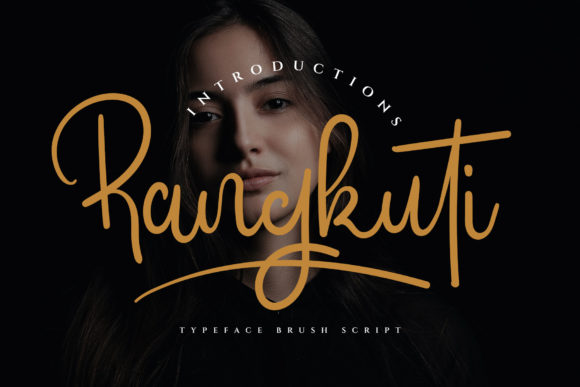
Introducing Rangkuti Font: A Script Font Odyssey for Design Portfolios
In a world where creativity reigns supreme, your design portfolio is your canvas, a stage for your artistic prowess to shine. And just as a painter's brushstrokes bring life to a blank canvas, Rangkuti Font emerges as the perfect instrument to transform your portfolio into a captivating masterpiece.
Embrace the allure of Rangkuti, a thin, cursive script font that dances across the digital realm with effortless grace. Its delicate lines and elegant flourishes evoke a sense of timeless sophistication, inviting viewers to immerse themselves in the artistry of your designs.
With Rangkuti as your font of choice, your portfolio becomes a symphony of visual storytelling, where each letter dances in harmony with your creations. Whether you're showcasing your latest logo designs, unveiling breathtaking wedding invitations, or crafting captivating headlines, Rangkuti elevates your work to new heights of visual appeal.
Step into a realm of endless possibilities with Rangkuti, a font versatile enough to complement any design aesthetic. Its adaptability knows no bounds, allowing you to effortlessly incorporate it into t-shirts, letterheads, signage, labels, and beyond. Let Rangkuti's charm infuse your designs with a touch of elegance, a hint of whimsy, or a dash of intrigue.
Dare to be bold, to let your creativity run wild, knowing that Rangkuti will faithfully translate your vision into a visual symphony. Whether you're crafting news articles, designing eye-catching posters, or creating badges that demand attention, Rangkuti empowers you to make an unforgettable impact.
Unleash the boundless potential of Rangkuti, a font designed to transform your design portfolio into a captivating journey, a testament to your artistic prowess. Let your designs take center stage, adorned with the beauty of Rangkuti, and watch as your portfolio becomes a magnet for admiration and appreciation.